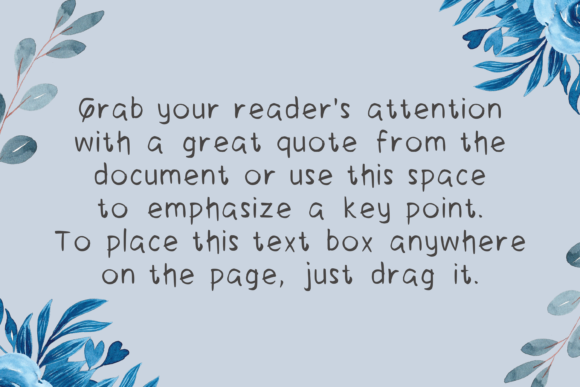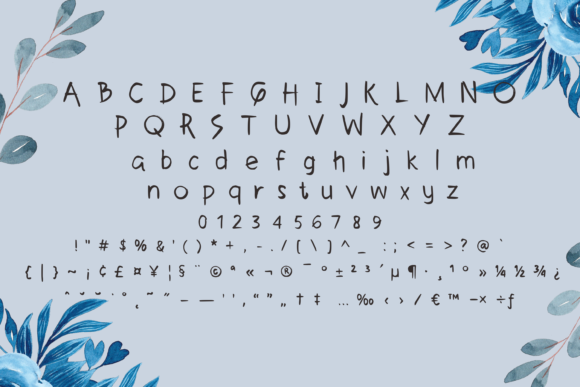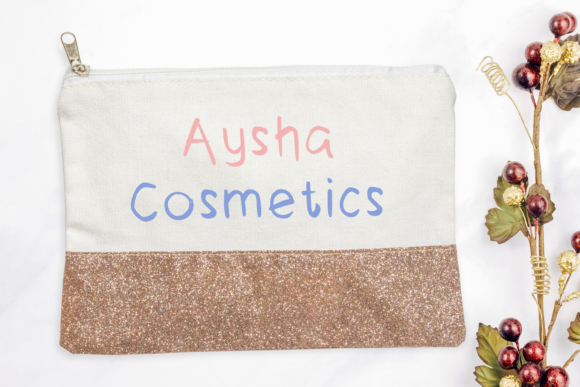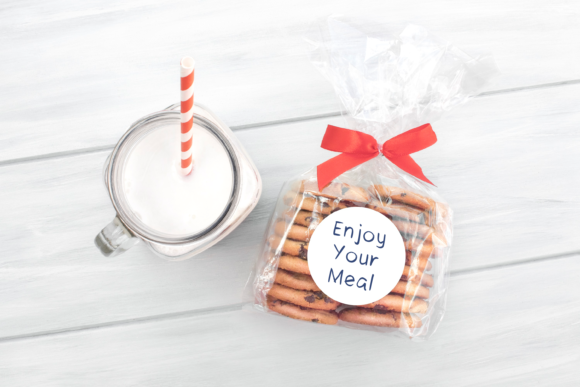
Introduction to Ramenasse Font
Have you ever been stuck on a design project, struggling to find the perfect font to bring your vision to life? It’s a moment we’ve all been there, staring at a blank screen, trying to conjure up the perfect combination of letters to match our creative vision. For designers, the right font can make all the difference, elevating our work from ordinary to extraordinary.
That’s where the Ramenasse Font comes in – a stunning, high-quality handwritten font that’s sure to take your creative project to the next level. With its unique, rounded letters and transparent background, this design resource is a must-have for any serious designer.
Key Features of Ramenasse Font
- High-quality design: Ramenasse Font is a well-crafted, professional font suitable for various creative projects.
- Transparent background: The font features a transparent background, allowing for seamless integration with various design elements.
- Unique characteristics: Ramenasse Font boasts a distinctive, modern design that sets it apart from other fonts.
- Perfect for design resources: This font is an excellent addition to any design resource library, ideal for creative projects that require a touch of sophistication.
Honest Review: Ramenasse Font
I recently had the chance to work with the Ramenasse Font, a high-quality design resource that offers a transparent background, making it perfect for any creative project. The font is available for free download, which is a definite plus in my book.
- ✨ The font’s design is clean and modern, making it suitable for a wide range of applications, from web design to print materials.
- ✨ The transparent background is a huge plus, allowing me to easily place the font on any background without worrying about distracting colors or patterns.
- ✨ The font is highly versatile and can be used in a variety of creative projects, from logos to signage.
- ⚠️ The font may not be suitable for use in extremely large or complex designs, as it can become difficult to read at certain sizes.
- ⚠️ The font may not be as customizable as some other design resources, which could be a limitation for designers who require a high degree of control over their typography.
Overall, I was impressed with the Ramenasse Font and would definitely recommend it to designers who are looking for a high-quality, versatile font for their next creative project.
Tips for Getting the Most Out of Ramenasse Font
To get the most out of the Ramenasse Font, use it in conjunction with other high-quality design elements. Experiment with different font sizes, colors, and styles to create unique and eye-catching designs. The transparent background of the font also makes it easy to customize and blend with other design elements.
The Ramenasse Font is ideal for a variety of creative projects, including logos, brochures, business cards, and presentations. Its high-quality design and transparent background make it an excellent choice for designers looking for a versatile and customizable font.